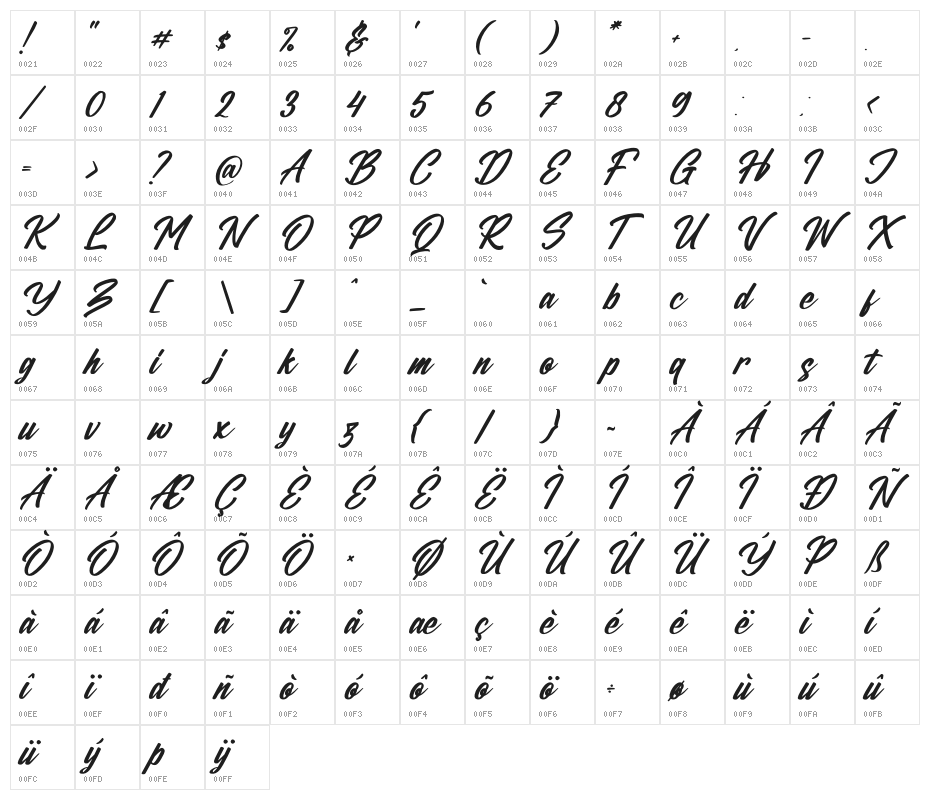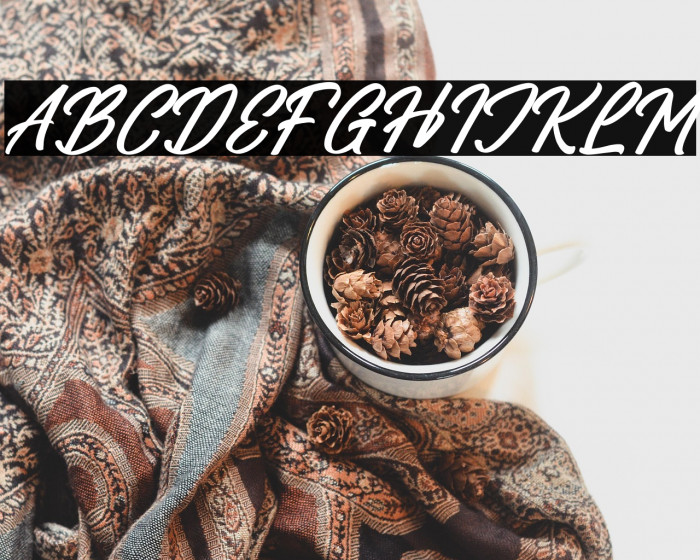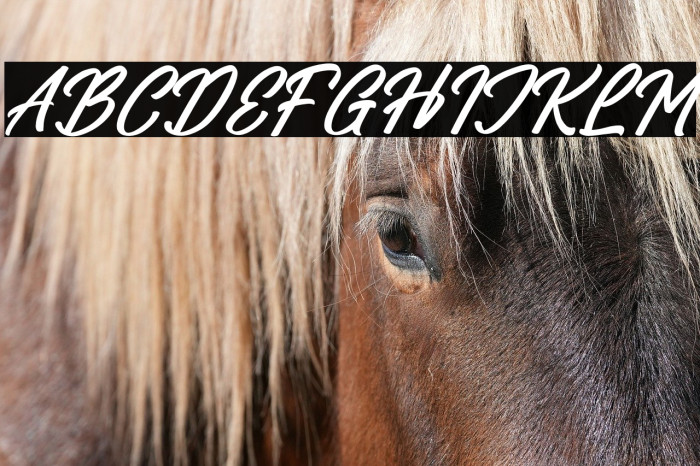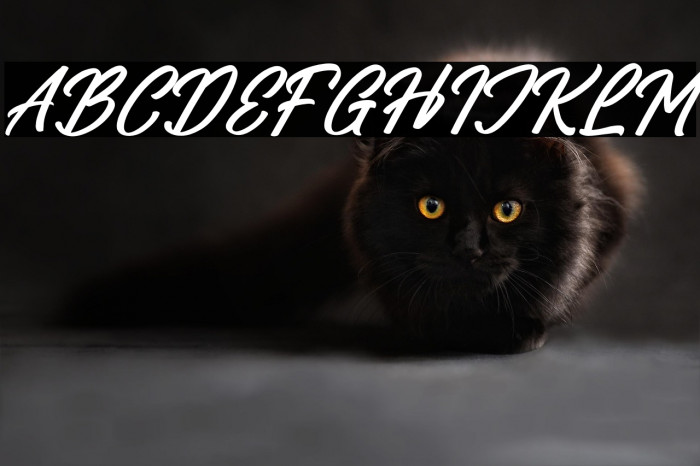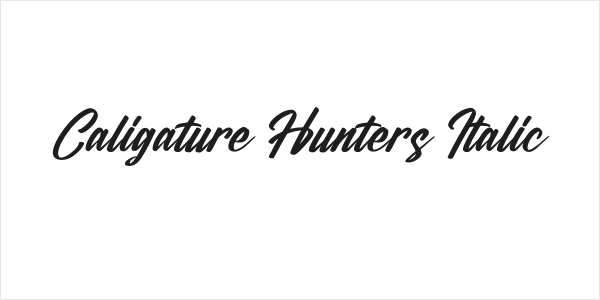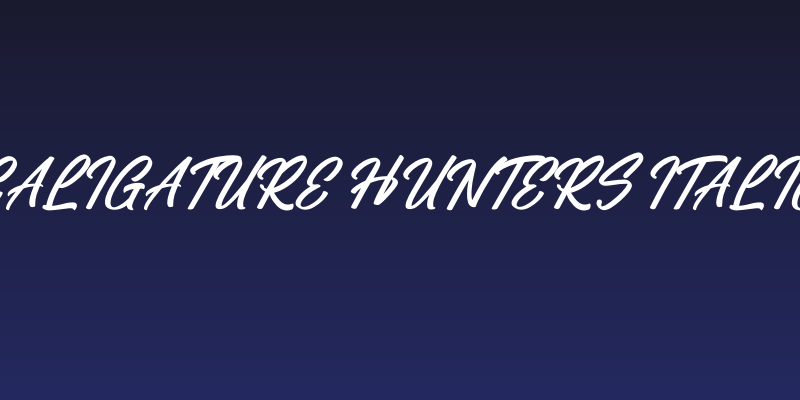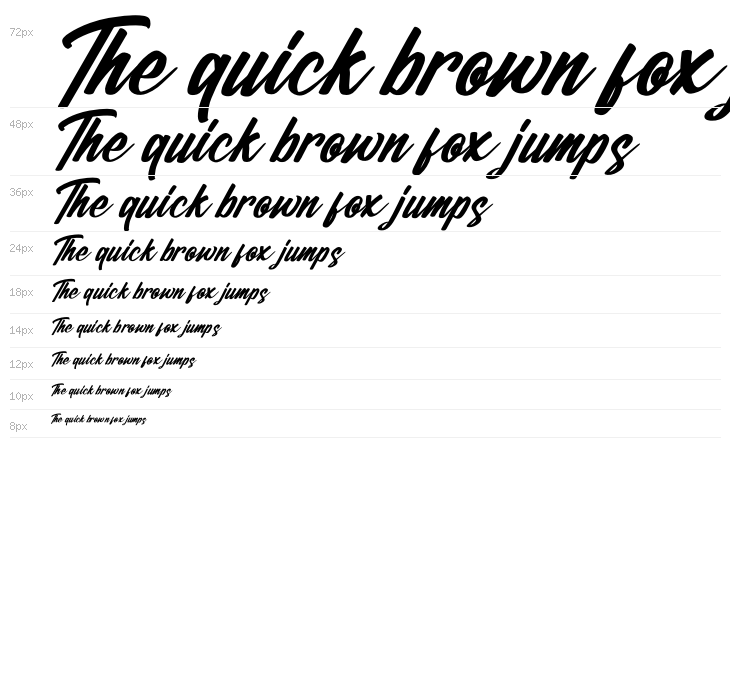
Caligature Hunters Italic Font
Caligature Hunters Italic Description
This font exudes a dynamic and expressive style, characterized by its bold and flowing script. The letters are slanted, giving it an italic appearance that enhances its sense of movement and elegance. Each character is crafted with smooth, continuous strokes, creating a cohesive and harmonious look. The uppercase letters are slightly more formal, while the lowercase letters maintain a casual and approachable feel. The numerals and special characters are consistent with the overall aesthetic, ensuring versatility across various applications. This font is ideal for projects that require a touch of sophistication and flair.